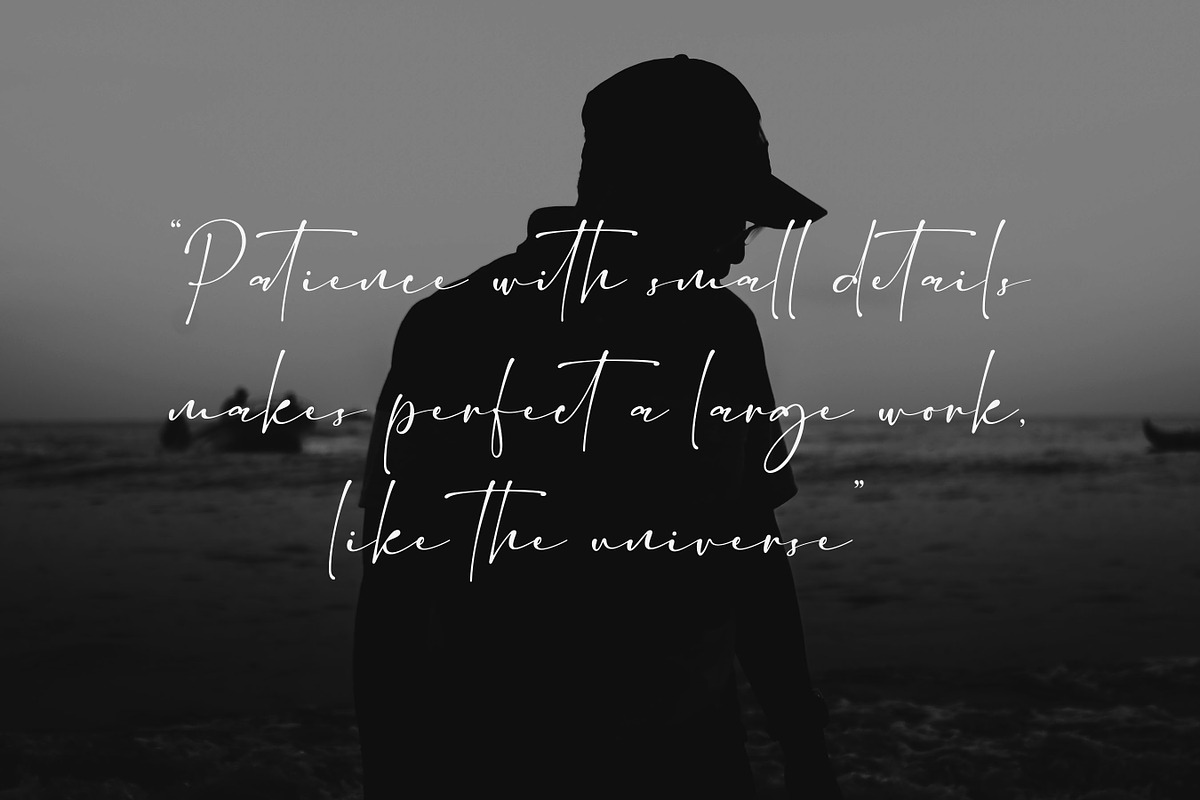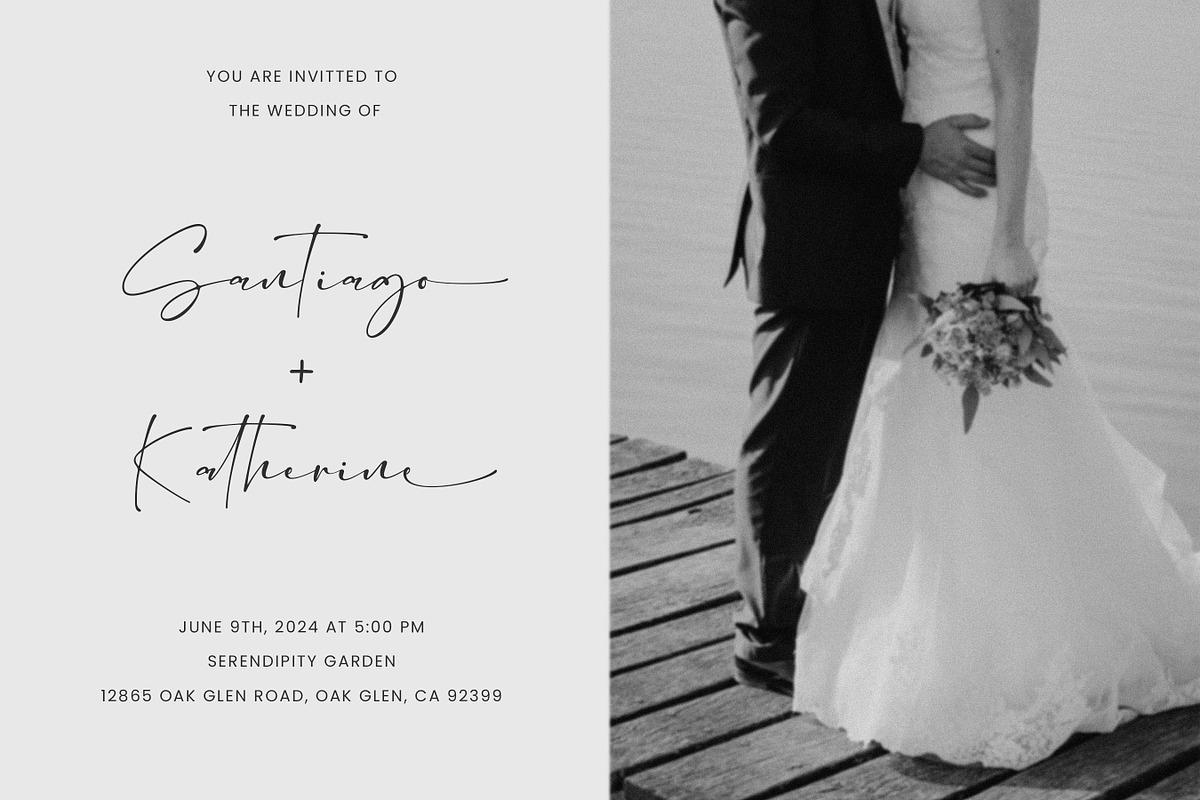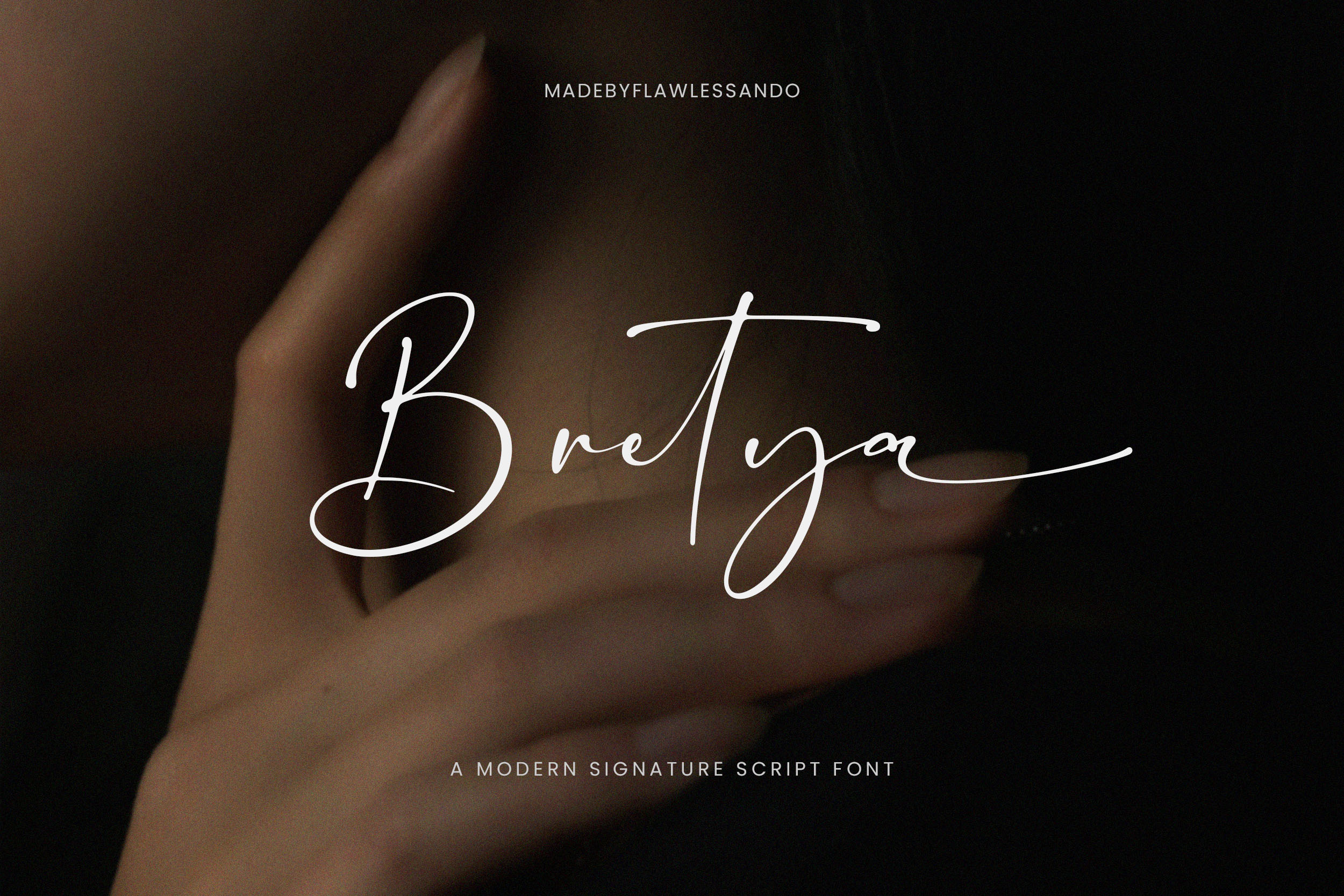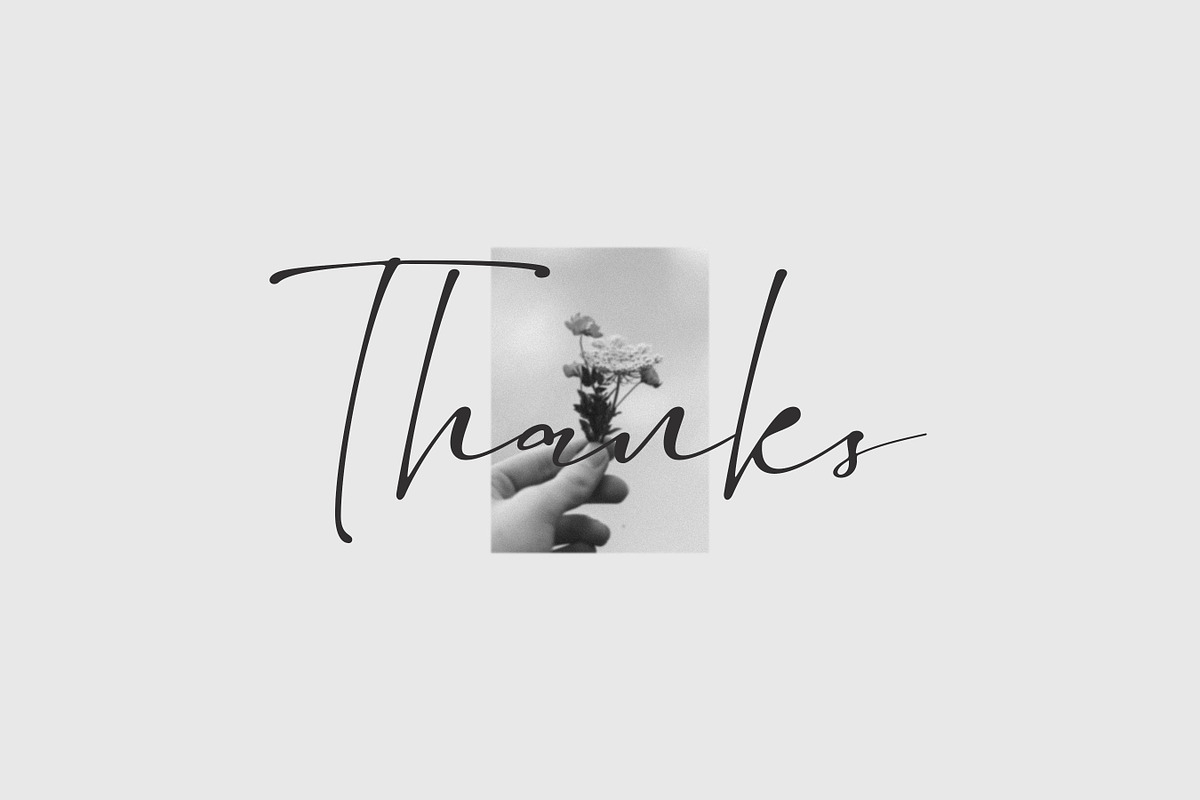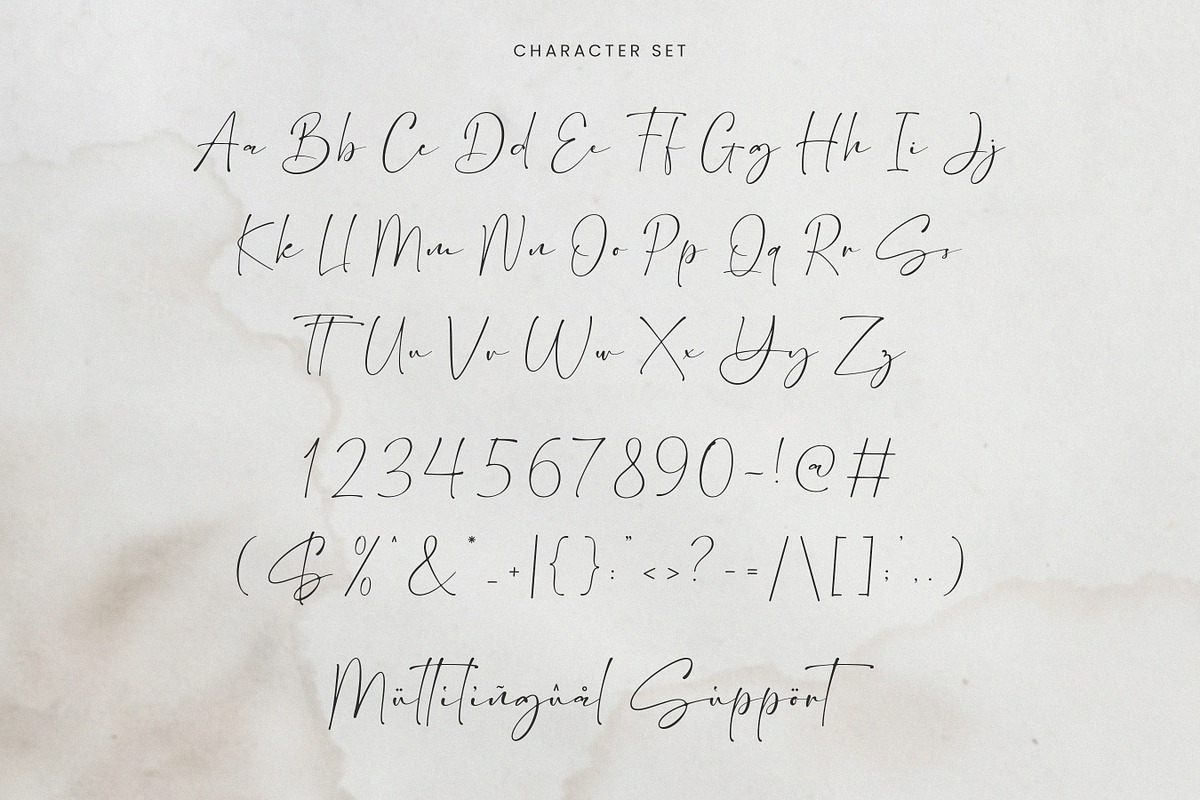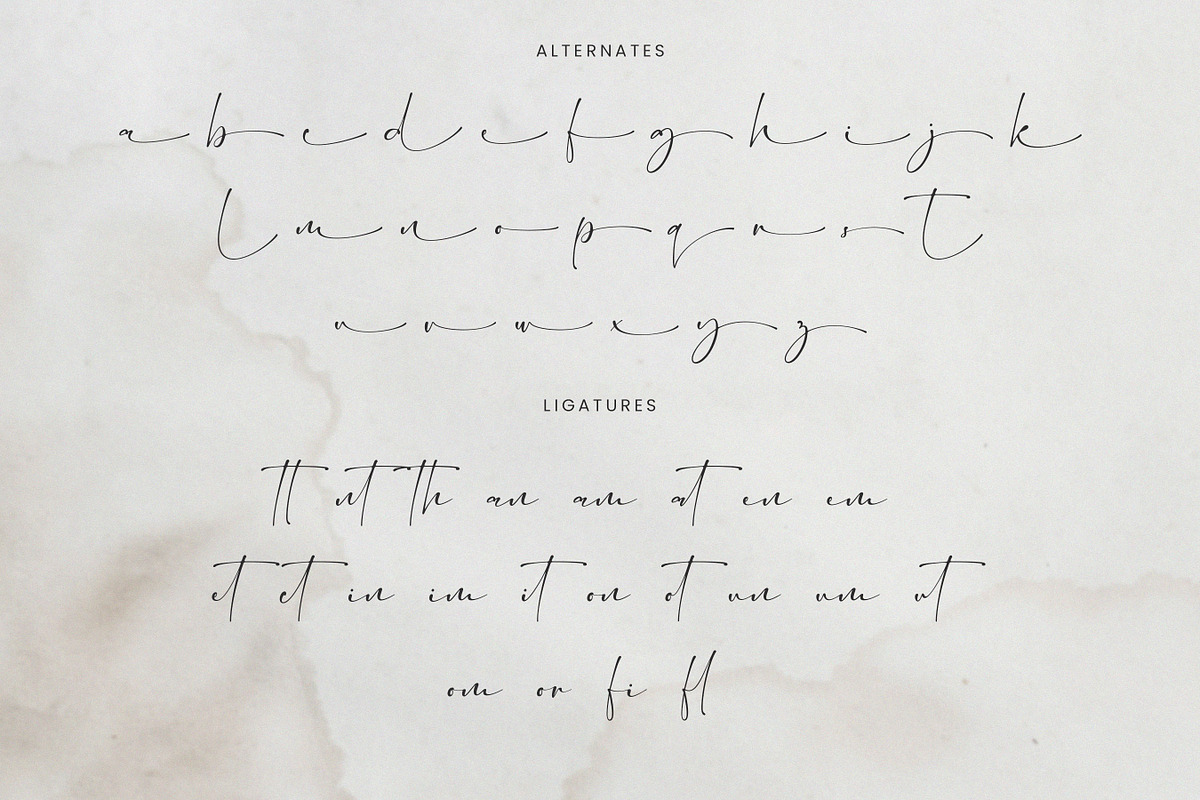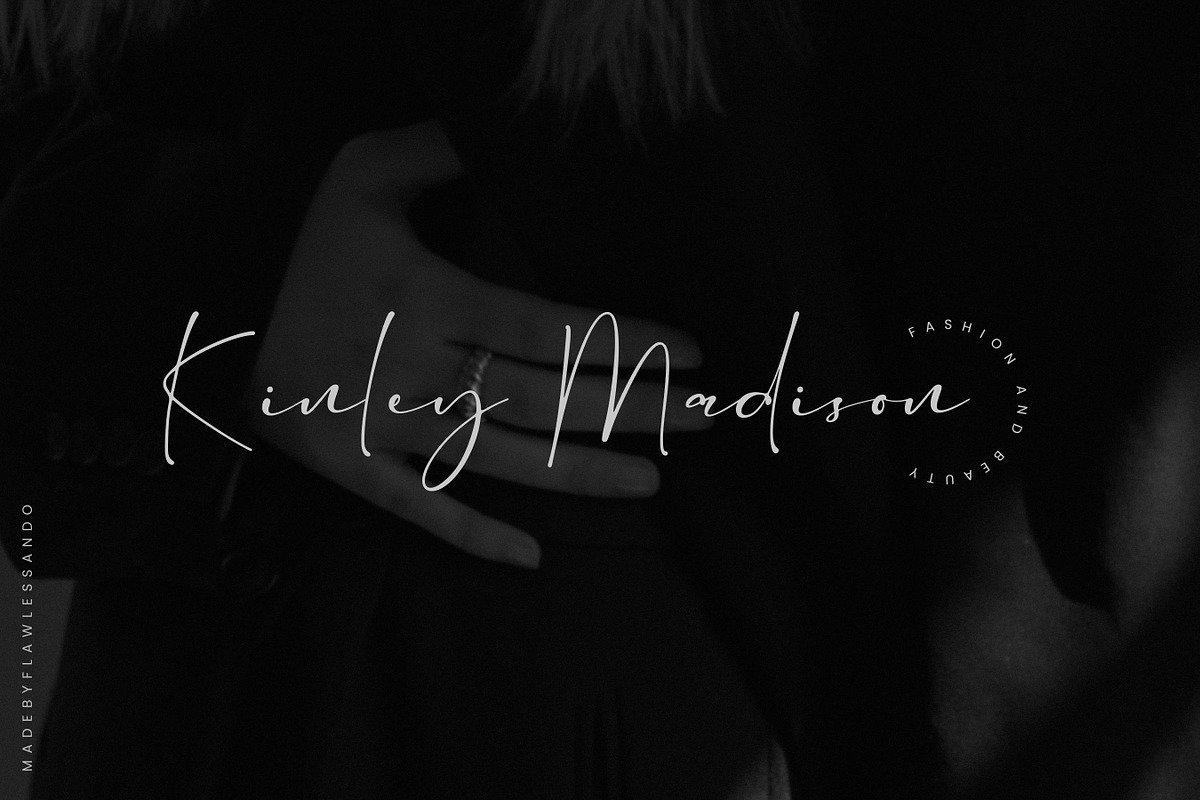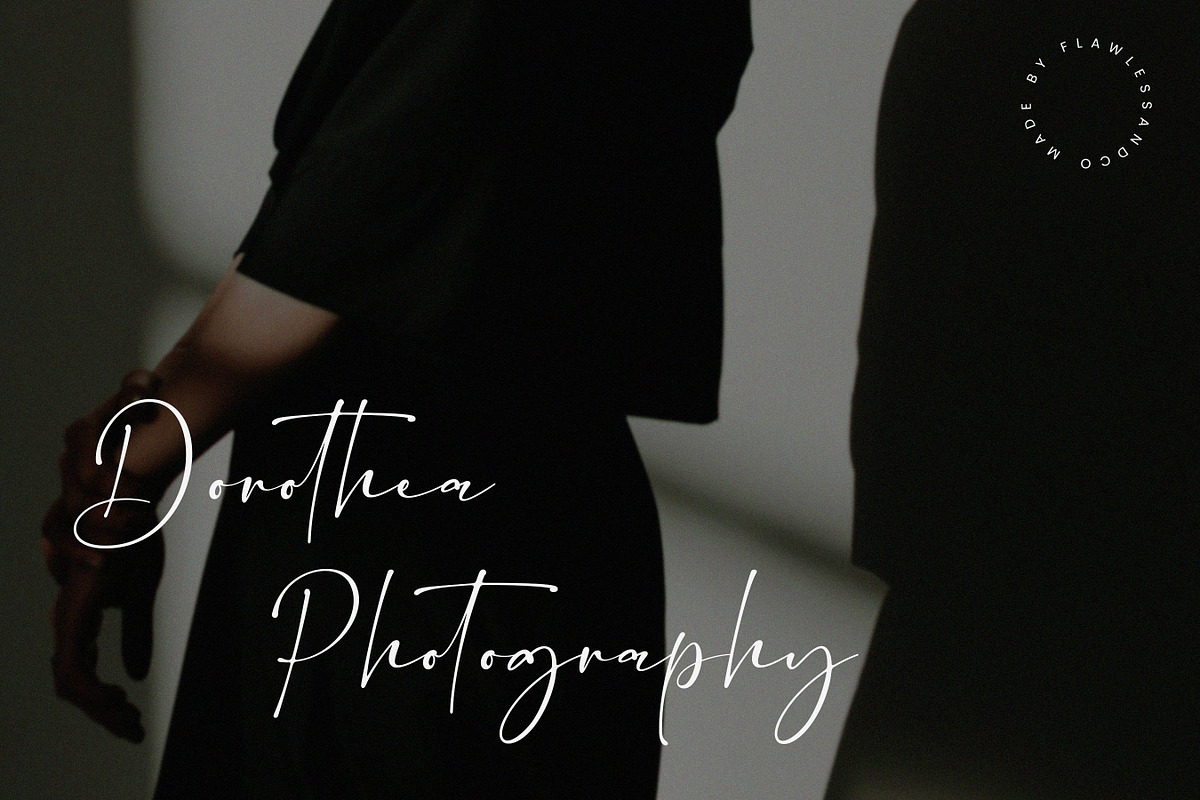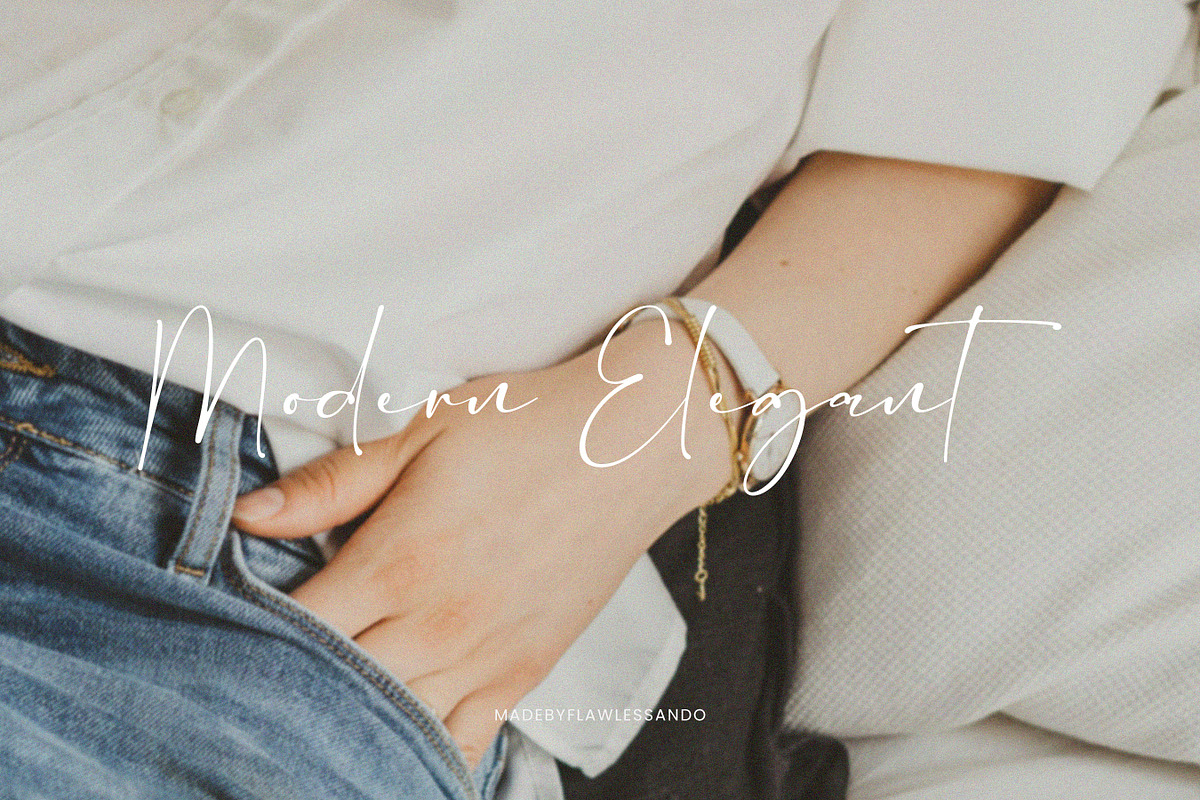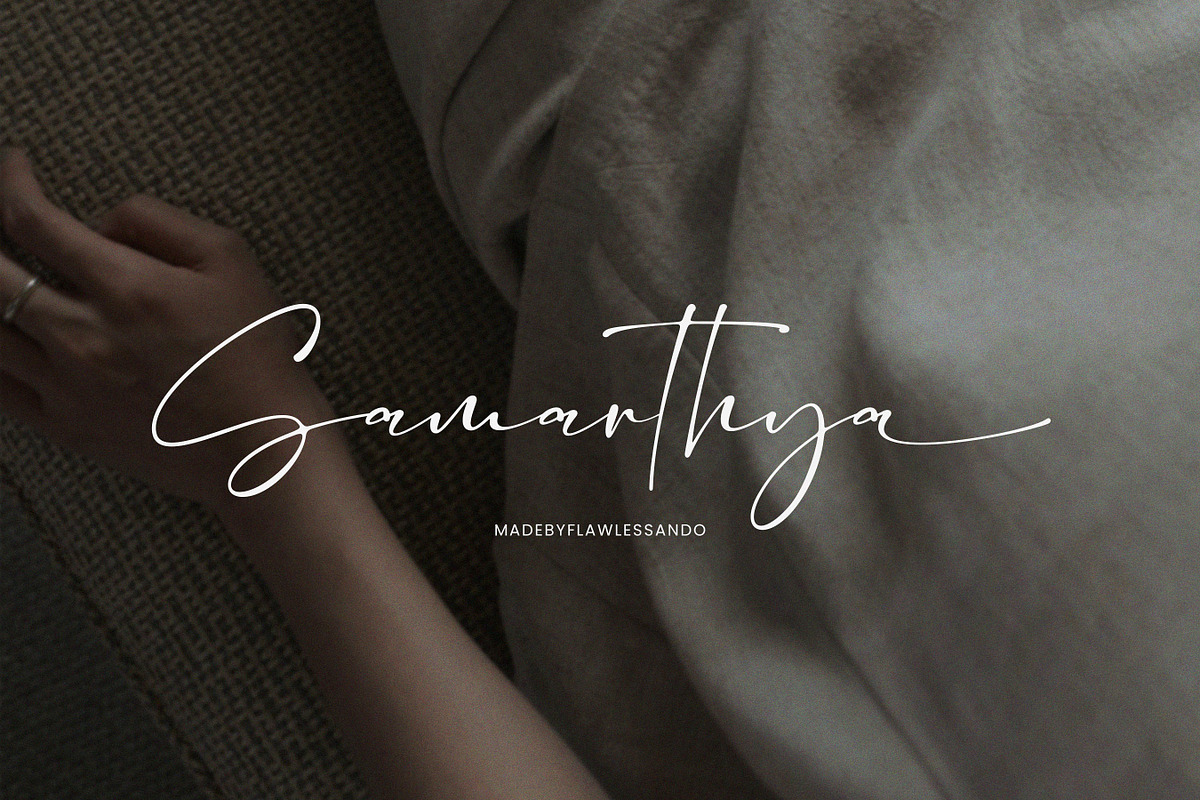
Bretya - Signature Script Font
Make your mark with "Bretya," a modern signature script font that embodies elegance, confidence, and individuality. With its fluid strokes and contemporary flair, Bretya offers a fresh take on the classic signature style, perfect for branding, wedding invitations, logos, and personal projects.
Multilingual Uppercase alphabet A-Z Lowercase alphabet a-z Numbers 0-9 Some punctuation